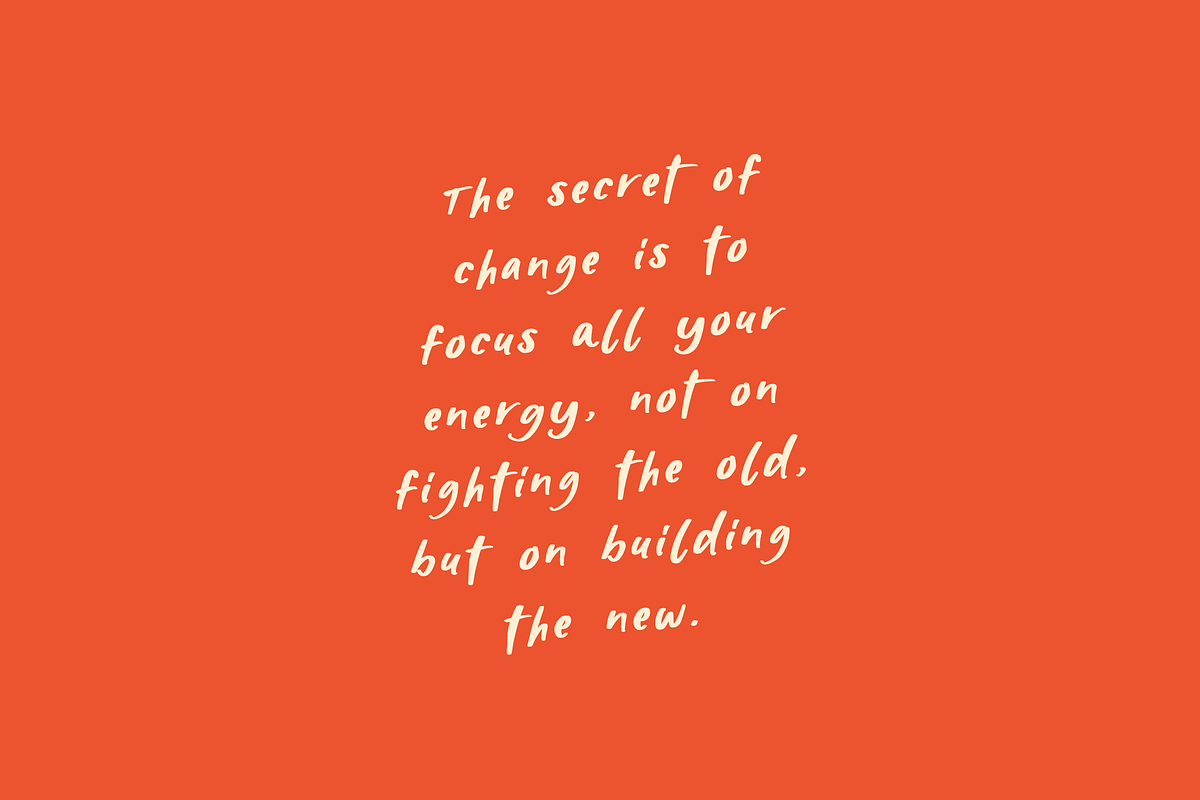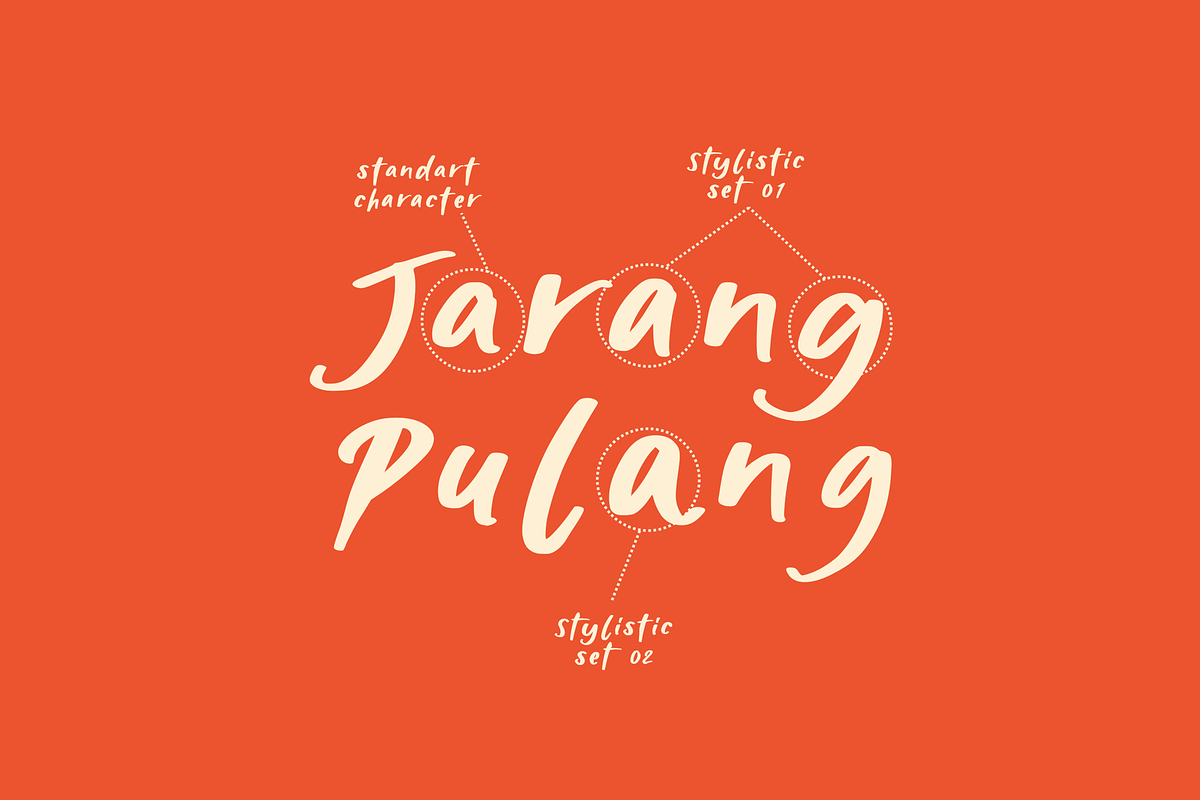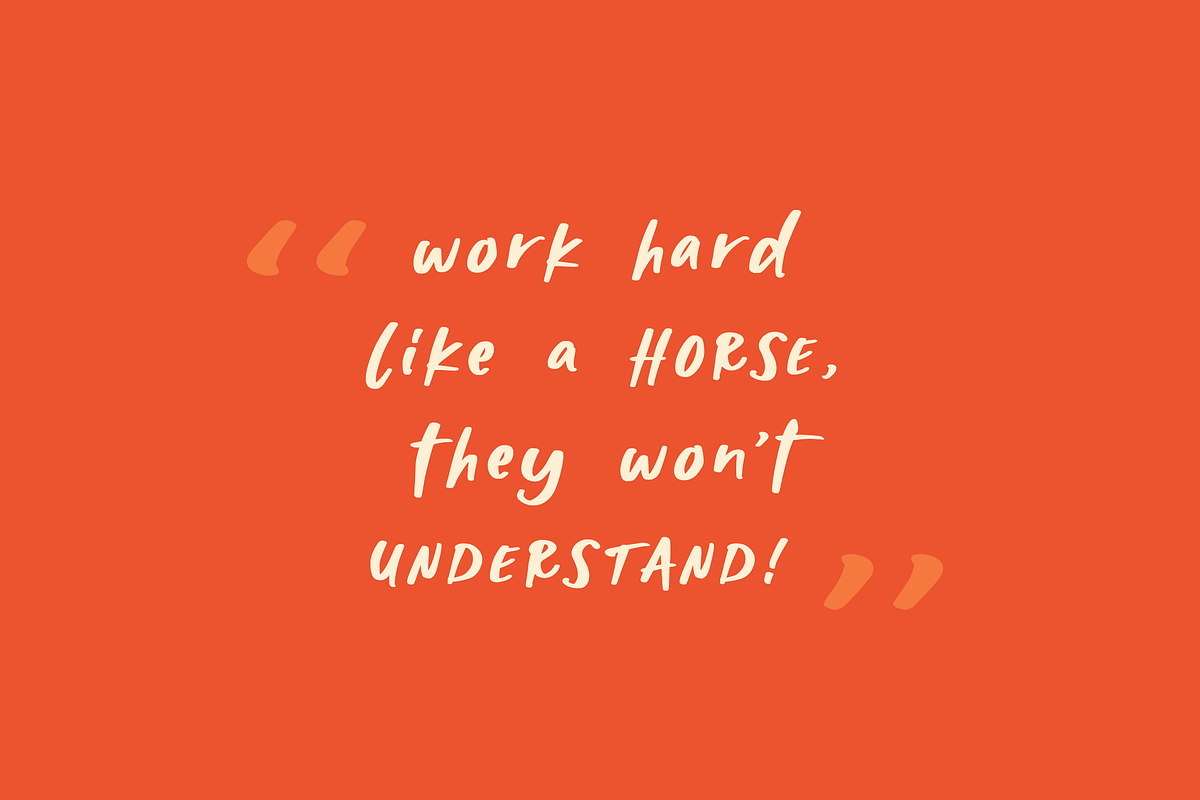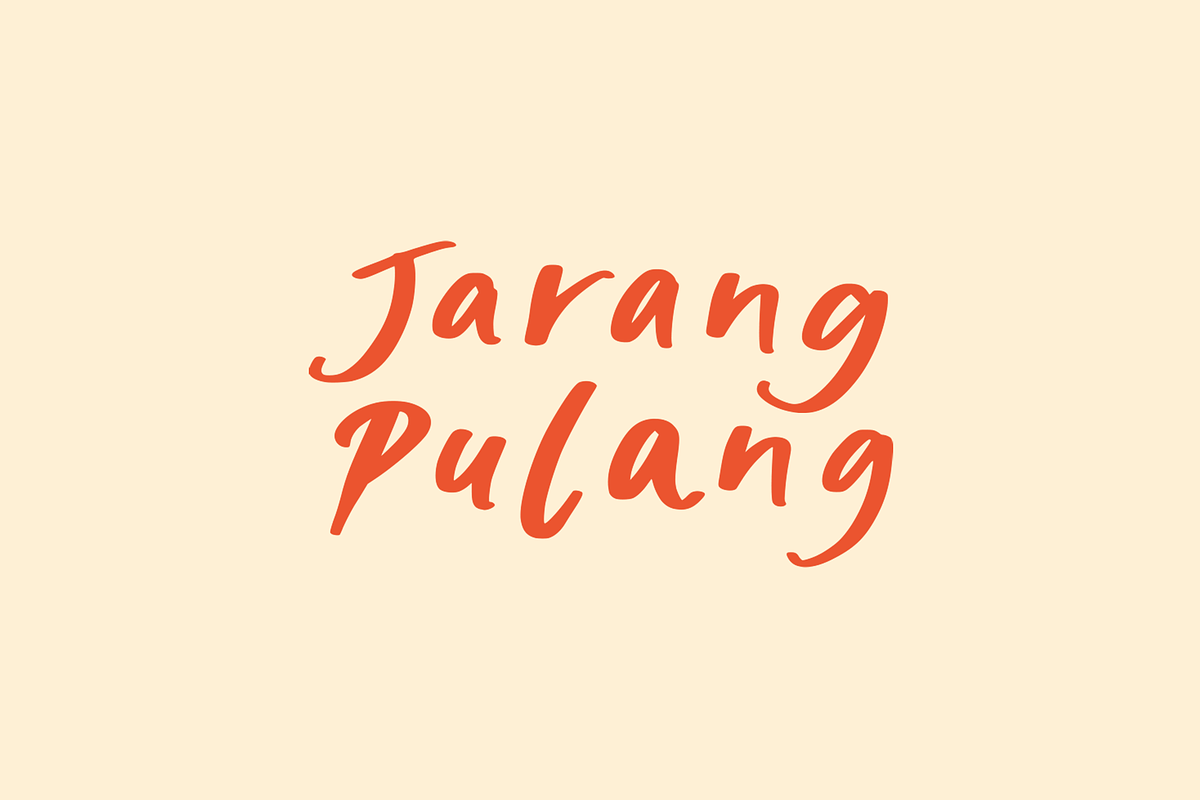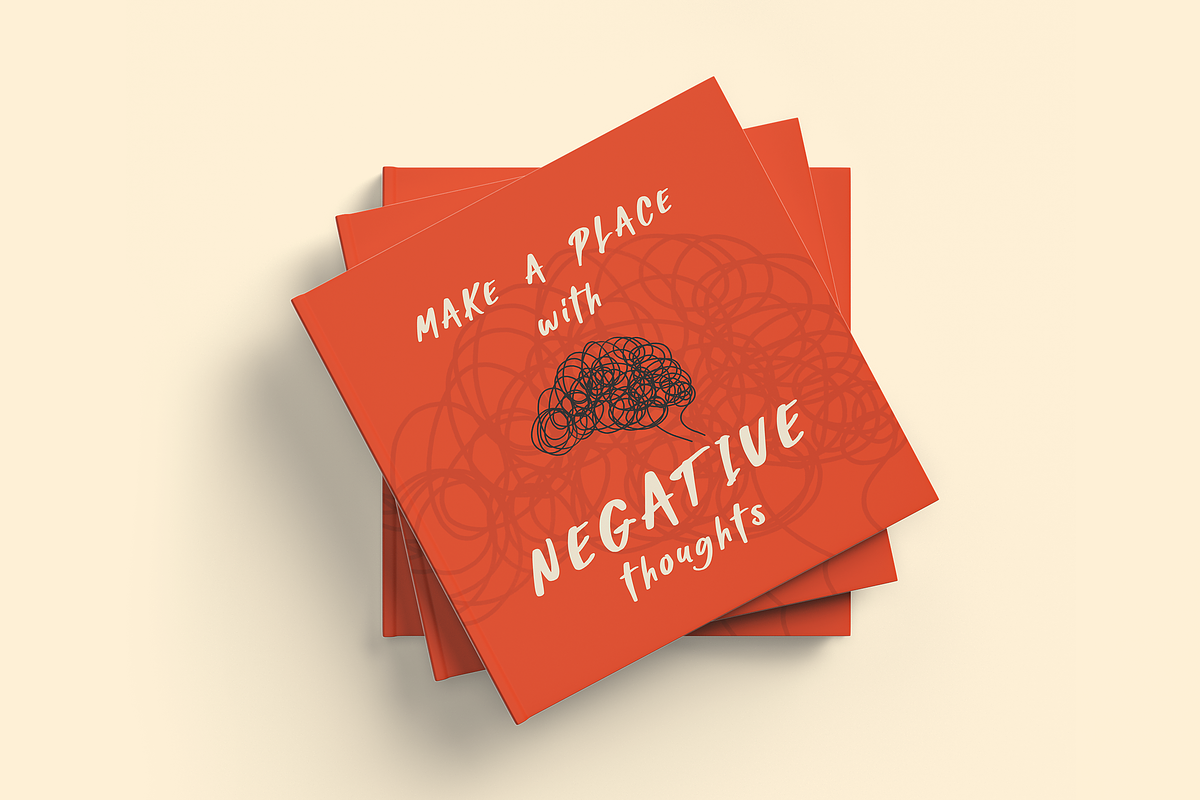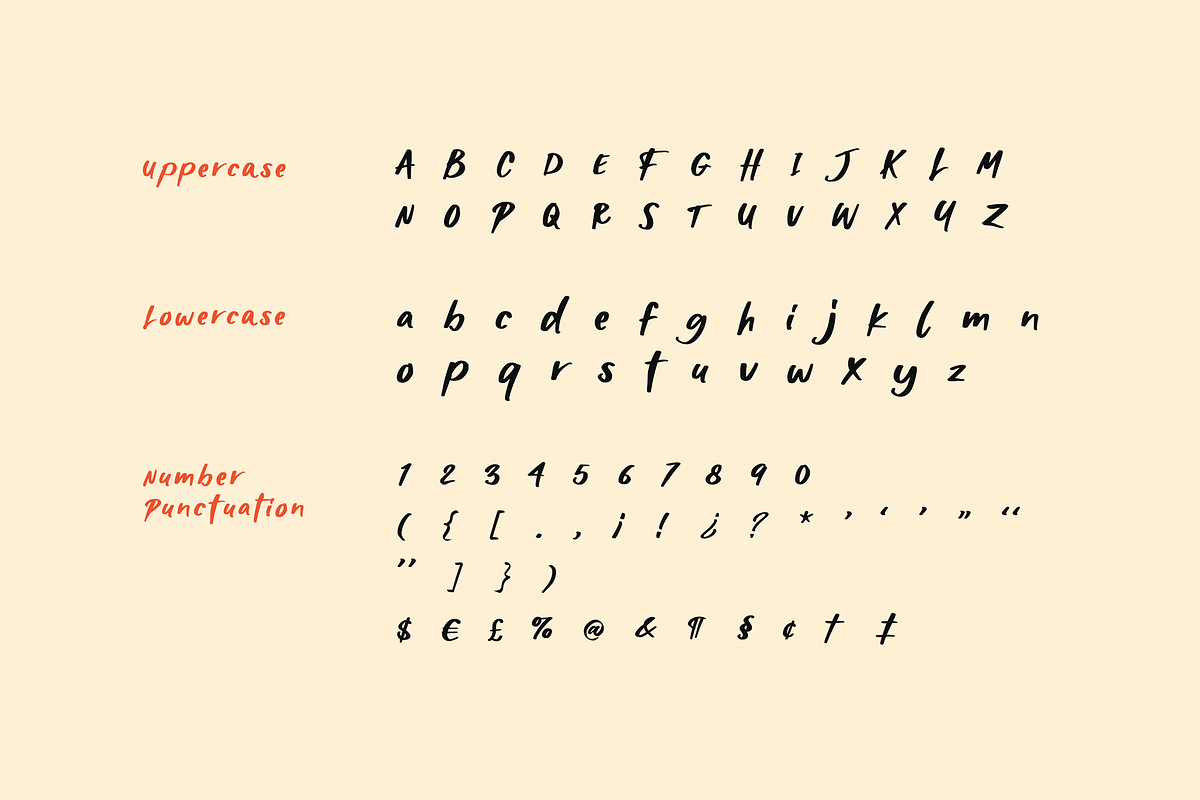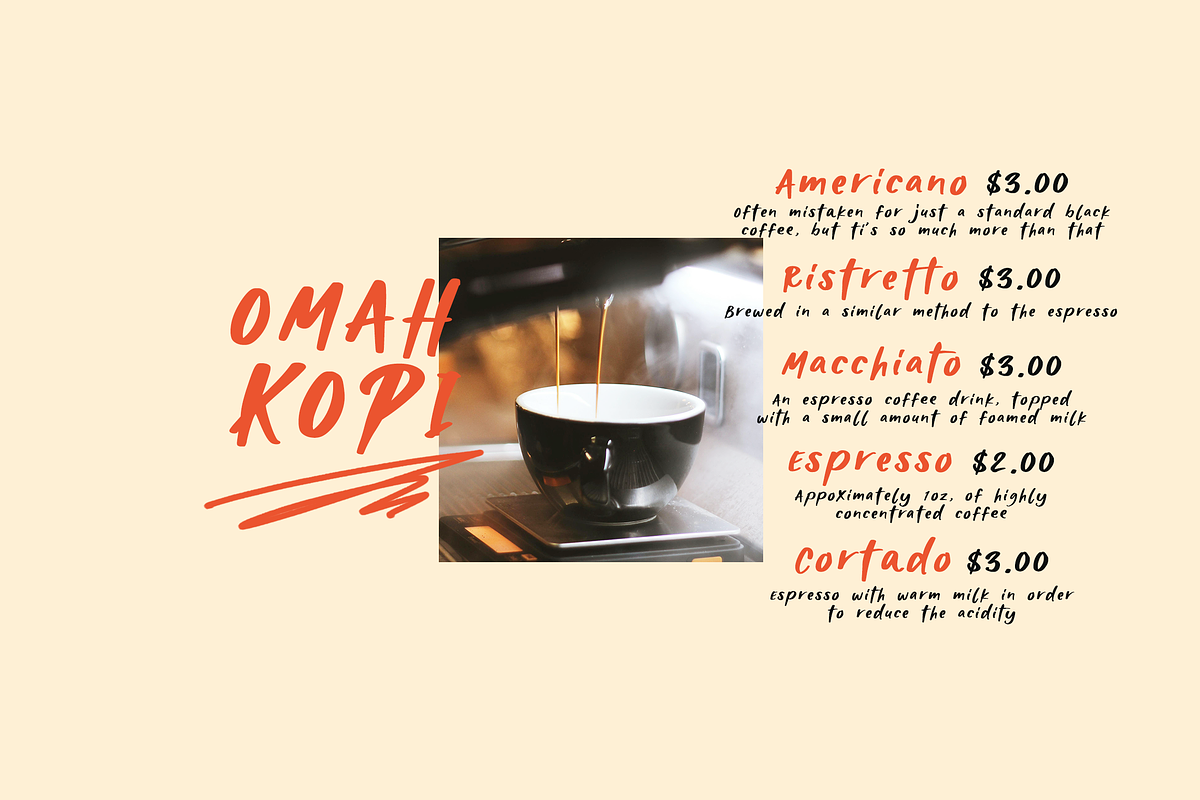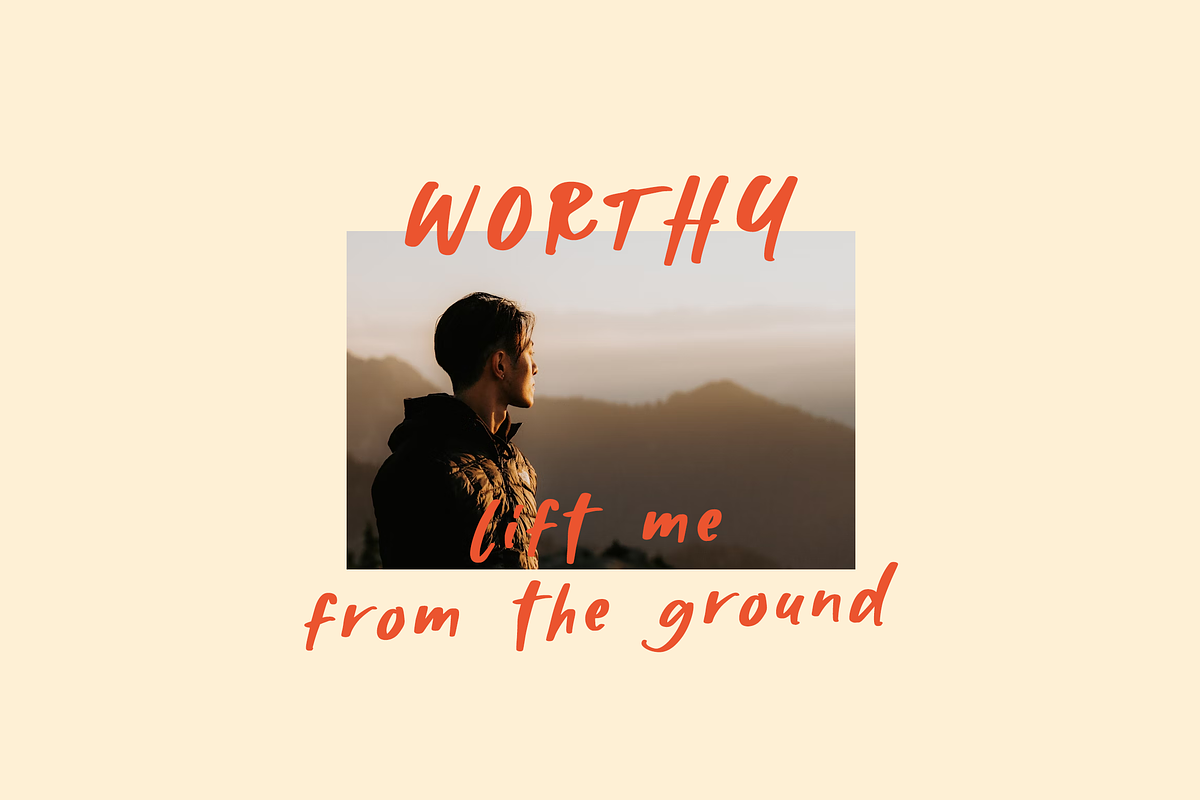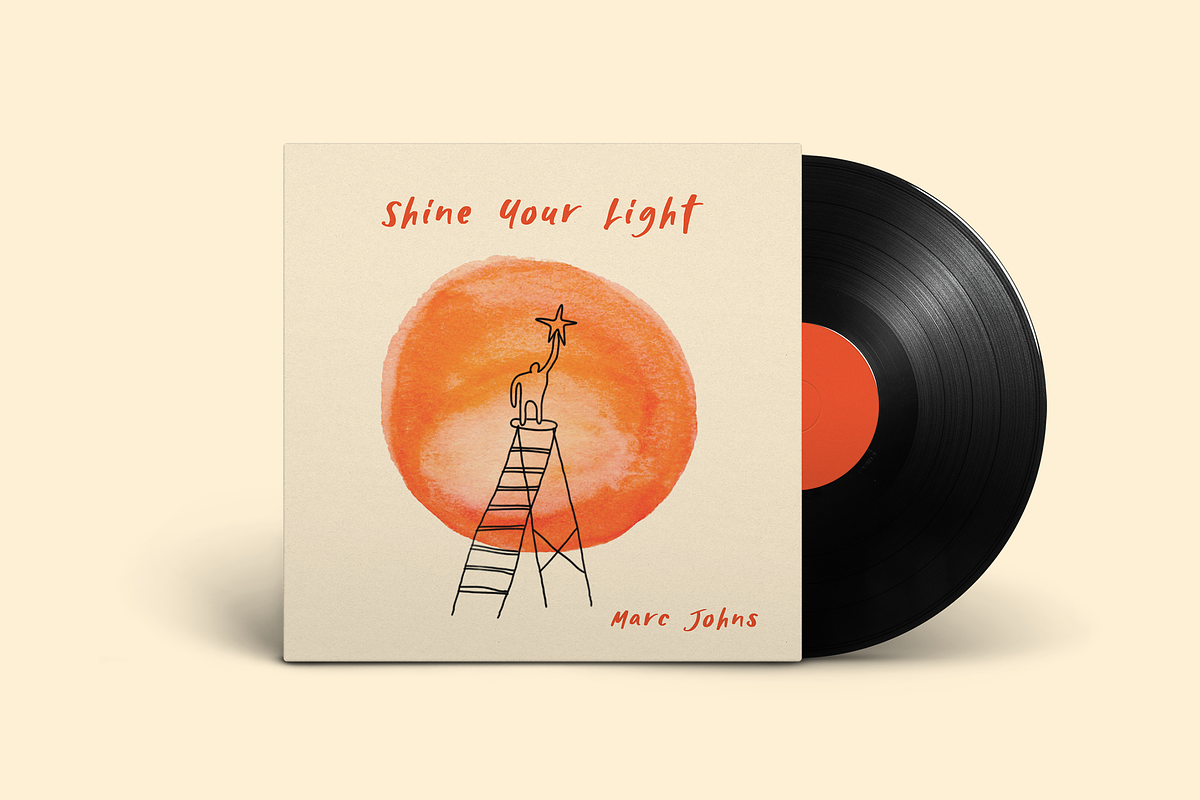
Jarang Pulang
Jarang Pulang made from a painting brush drawn on white paper, this font has a very strong natural feel. Create an authentic atmosphere in every design of your dreams. Thank you for using this font, have a nice day! Cheers 😉